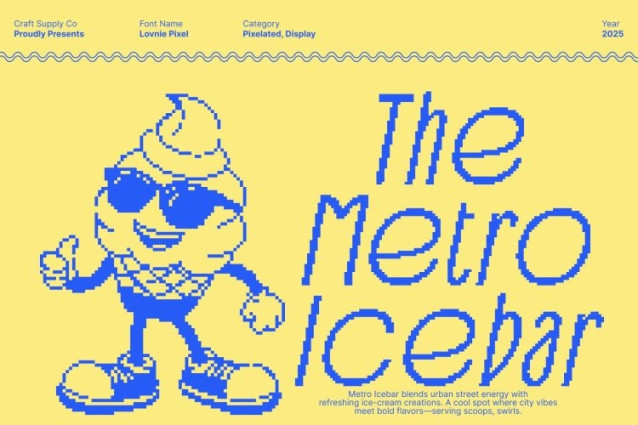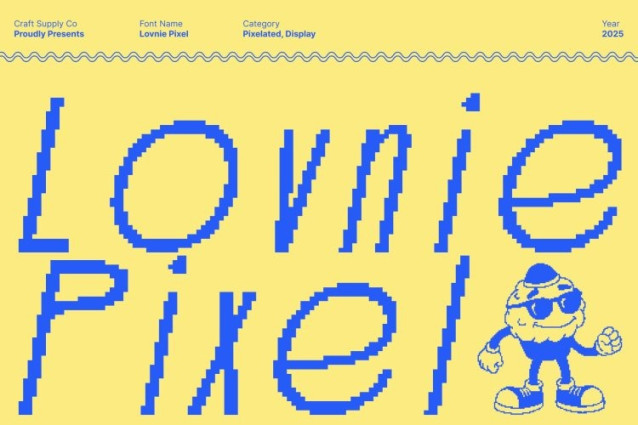
Lovnie Pixel Font
Lovnie Pixel Font This is a sophisticated Art Deco display font that captures the timeless beauty of vintage design. Its slim proportions, tall condensed structure, and geometric precision create an instantly luxurious aesthetic. The striking uppercase characters bring a sense of refinement and style, making this font ideal for decoration-themed visuals, high-end branding, editorial layouts, and luxury packaging.
Pixel Effect for a Modern Digital Twist
While rooted in classic Art Deco elegance, this font incorporates a subtle pixel style that adds a fresh, digital edge. This pixel effect enhances its geometric charm and transforms its vintage influence into a trendy, contemporary look perfect for modern or digital-focused design projects.
Clean Lines and Geometric Precision for High-End Visuals
Every character in Lovnie Pixel is crafted with clean lines, sharp balance, and a polished architectural feel. The condensed letterforms give it a strong sense of structure, allowing your design to appear both graceful and commanding. Its refined geometry makes headlines, titles, and logos feel premium and visually captivating.
Perfect for Luxury Branding, Editorials, and Modern Creative Projects
This font shines in projects that blend elegance with modernity. Use it for luxury branding, fashion layouts, sophisticated posters, high-end product packaging, or digital designs that need a stylish Art Deco presence with a trend-forward pixel twist. It delivers a look that is chic, decorative, and unmistakably contemporary.